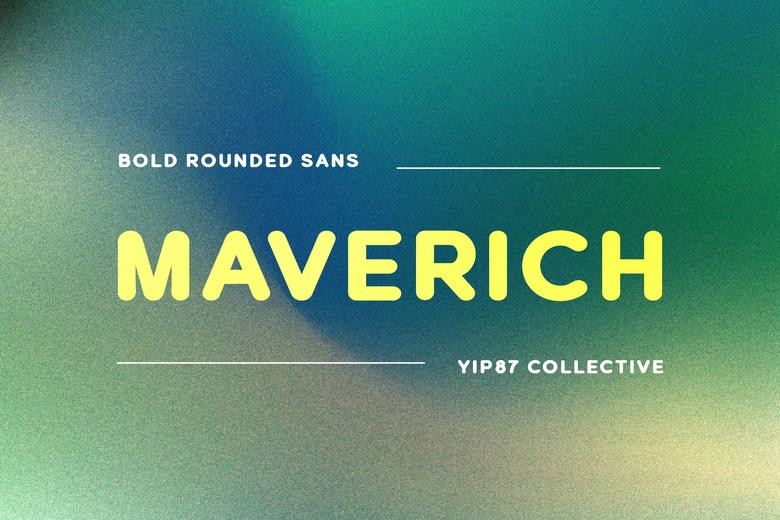
Maverich Font
Maverich is a very new type of rounded bold sans-serif Typeface which is inspired by modern style. Due to the rather daring saucy style of its appearance, Maverich Font is suitable for making headlines and graphic designs. In its usage, it is right for graphic design projects such as branding, packaging and advertising and among others.
This design and as such its extended style is modern it also comes in bold and for designers who seek to make a statement, it is a perfect choice. Don’t leave the branding design projects below the par, improve them with mavrich font now.
Maverich Sans Serif Font